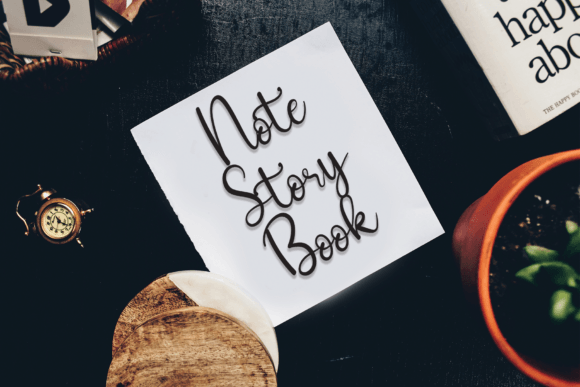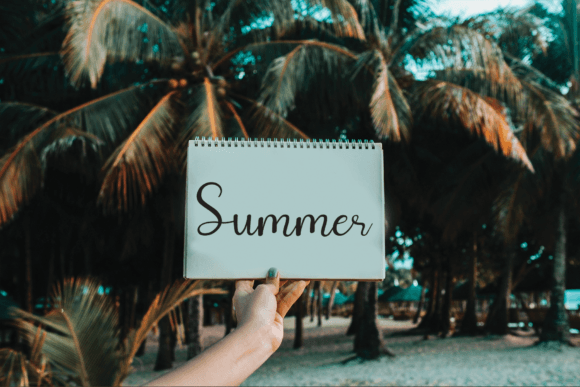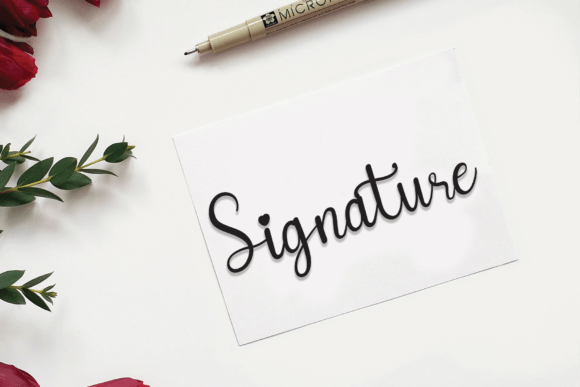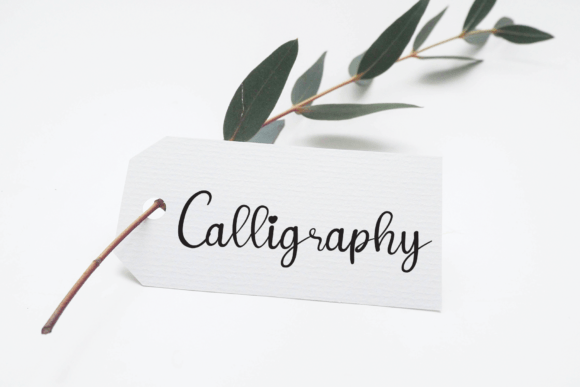
Introducing Chilly Font: The Fun and Friendly Handwritten Font for All Occasions
Are you tired of using the same old fonts for your crafts, digital designs, presentations, and greeting cards? Look no further! Chilly Font is here to add a touch of fun and friendliness to your projects. This versatile handwritten font is perfect for designers, crafters, and anyone looking to add a personal touch to their work.
What Makes Chilly Font Special?
Chilly Font is a unique and charming handwritten font that is sure to capture the hearts of designers and crafters alike. Its fun and friendly vibe makes it perfect for a wide range of projects, from DIY crafts to digital designs, presentations, and greeting cards. Whether you’re looking to create something playful, whimsical, or heartfelt, Chilly Font is the perfect choice.
Uses for Chilly Font
So, what can you use Chilly Font for? The possibilities are endless! Here are just a few ideas to get you started:
• Crafts: Add a personal touch to your handmade crafts, such as scrapbooking, card making, and journaling.
• Digital Design: Use Chilly Font in your digital designs, such as social media graphics, blog posts, and website headers.
• Presentations: Add a touch of personality to your presentations, making them more engaging and fun.
• Greeting Cards: Create one-of-a-kind greeting cards for special occasions, such as birthdays, holidays, and weddings.
Why Designers and Crafters Love Chilly Font
So, why do designers and crafters love Chilly Font? Here are just a few reasons:
• Unique and Versatile: Chilly Font is a one-of-a-kind font that can be used in a variety of projects, making it a great addition to any design or crafting arsenal.
• Easy to Read: Despite its playful and whimsical nature, Chilly Font is easy to read, making it perfect for both digital and print projects.
• Customizable: Chilly Font can be customized to fit your project’s needs, making it easy to pair with other fonts and design elements.
Tips for Using Chilly Font
Here are a few tips for using Chilly Font in your projects:
• Pair with Other Fonts: Experiment with pairing Chilly Font with other fonts to create a unique and visually appealing design.
• Use in Headlines and Titles: Use Chilly Font in headlines and titles to add a touch of personality and whimsy to your projects.
• Experiment with Colors: Try out different colors and color combinations to add an extra layer of fun and personality to your projects.
In conclusion, Chilly Font is a fun and friendly handwritten font that is perfect for designers, crafters, and anyone looking to add a personal touch to their projects. Its versatility, ease of use, and customizable nature make it a great addition to any design or crafting arsenal. So, why not give Chilly Font a try and see how it can add a touch of fun and personality to your next project?
Whether you’re a seasoned designer or a crafty DIY enthusiast, Chilly Font is sure to become your go-to font for all occasions. So, get creative, have fun, and make your projects stand out with Chilly Font!